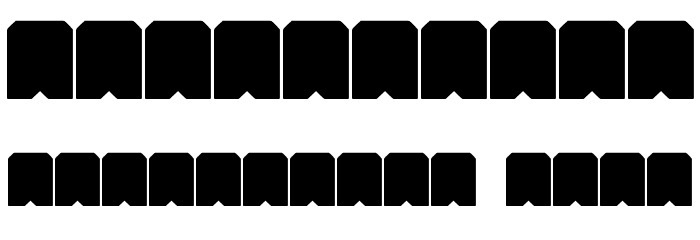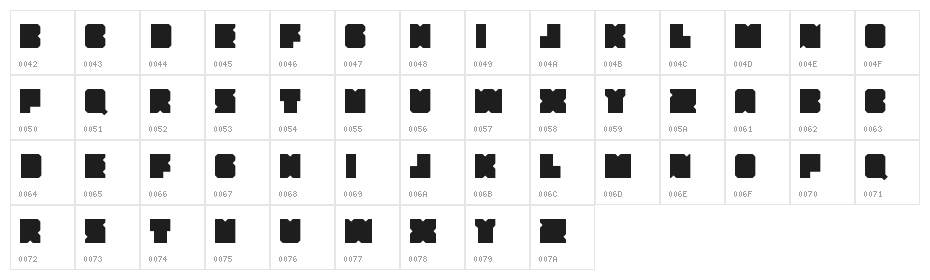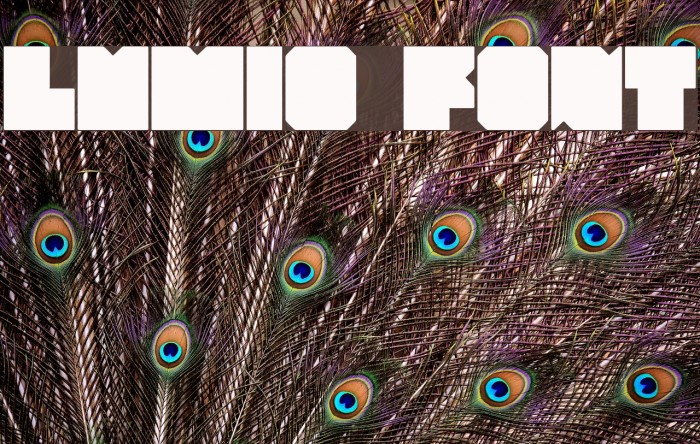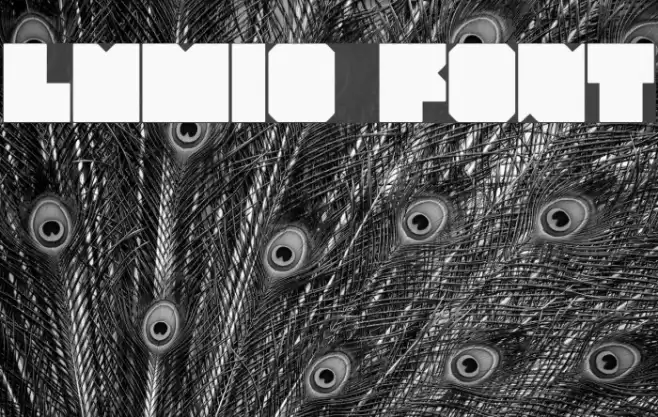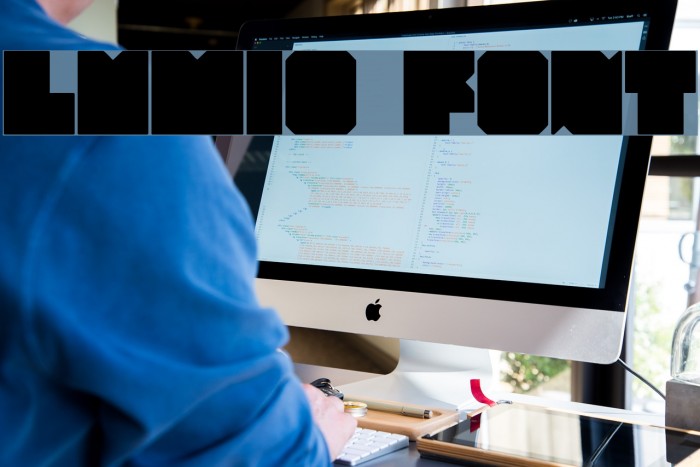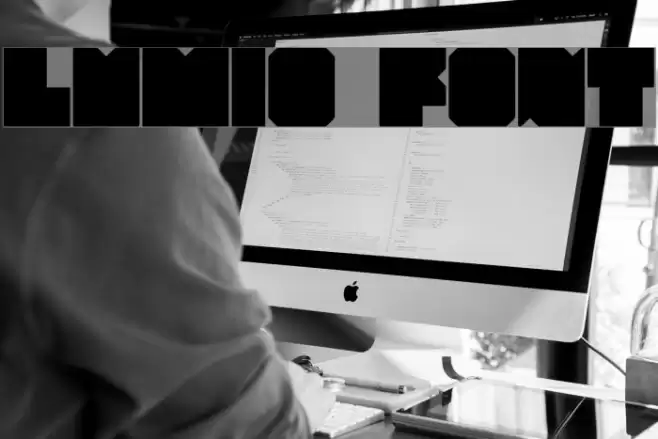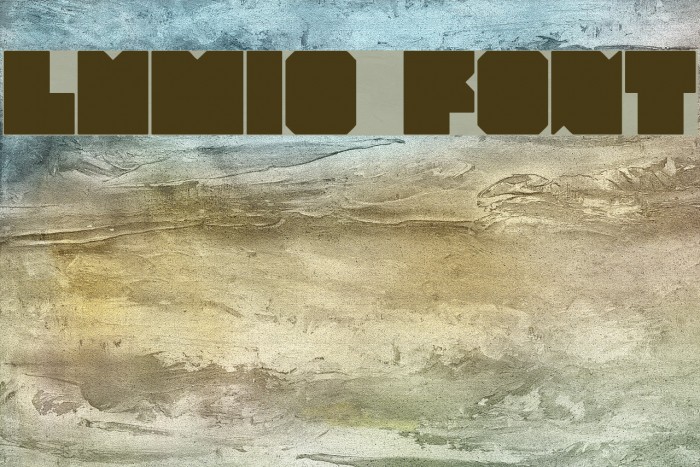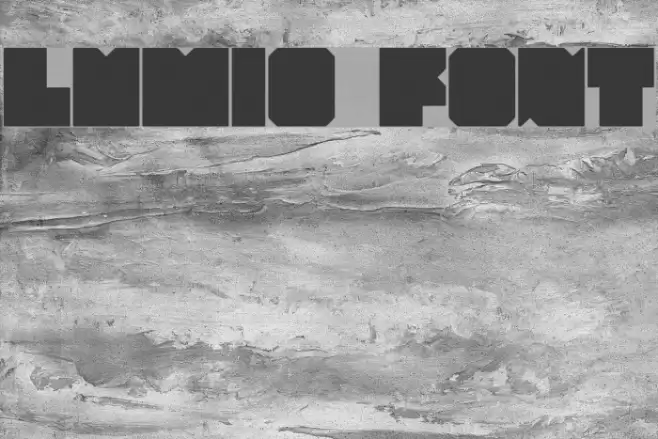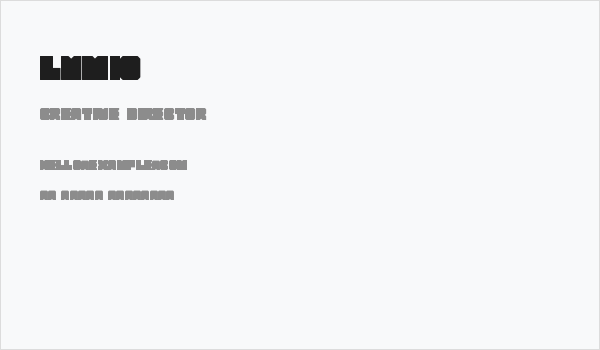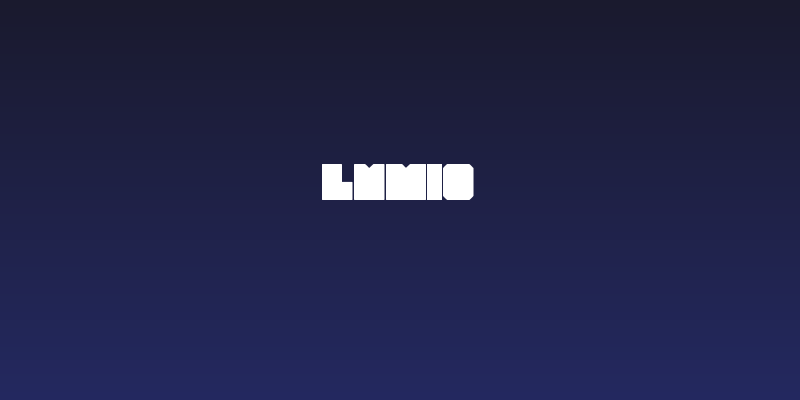
Lumio Font
Lumio Description
This font features a bold, geometric design with a strong emphasis on angular shapes and sharp edges. Each character is constructed with a uniform thickness, creating a cohesive and striking appearance. The font's unique style is characterized by its blocky, almost pixelated look, which gives it a modern and futuristic feel. The uppercase and lowercase letters maintain a consistent height, contributing to its uniformity. The numbers and special characters follow the same design principles, ensuring a seamless integration across all text elements. This font's distinct appearance makes it ideal for projects that require a bold and impactful visual statement.
| Proposed Projects | Ideal for branding, posters, headlines, and digital media that require a strong visual impact. |